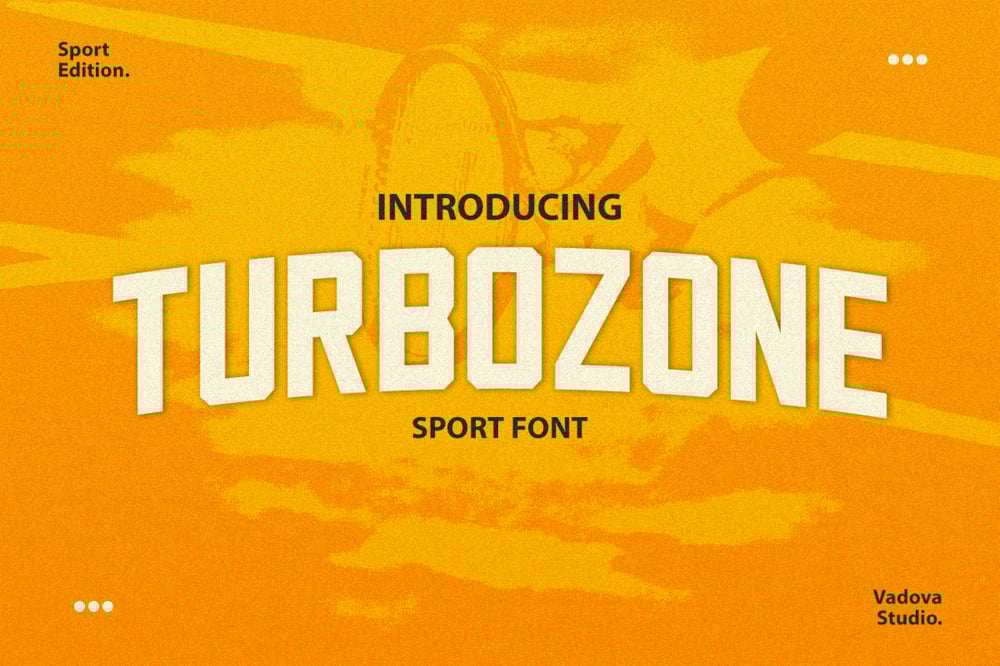
Turbozone
Turbozone font
Turbozone Font Family was designed by published by Vadova Std. Turbozone contains 1 styles and family package options. Turbozone is a bold and dynamic display typeface with sharp angles and an energetic structure, perfect for impactful designs. Inspired by retro action posters and modern sports branding, its strong geometric shapes and slightly slanted letters give it a sense of movement and intensity. Ideal for posters, sports graphics, gaming titles, and urban branding, this font brings a powerful, high-energy vibe to any design project.Uppercase & Lowercase charactersNumeral & Punctuations